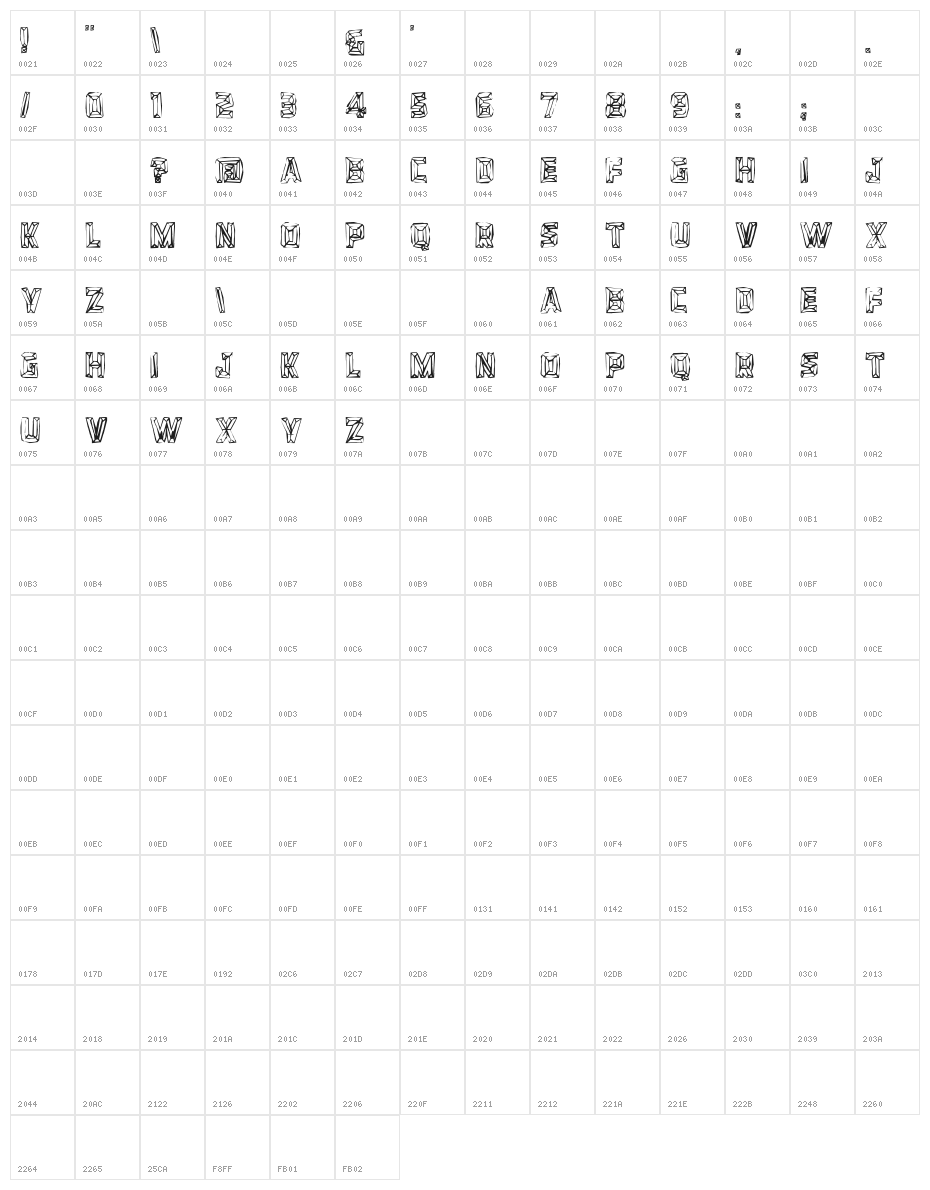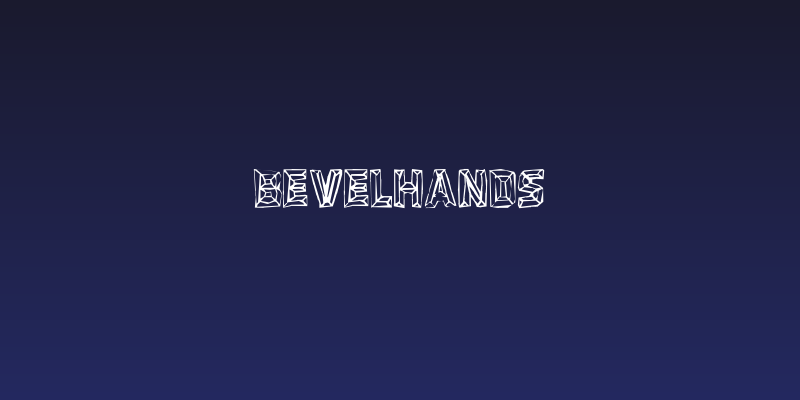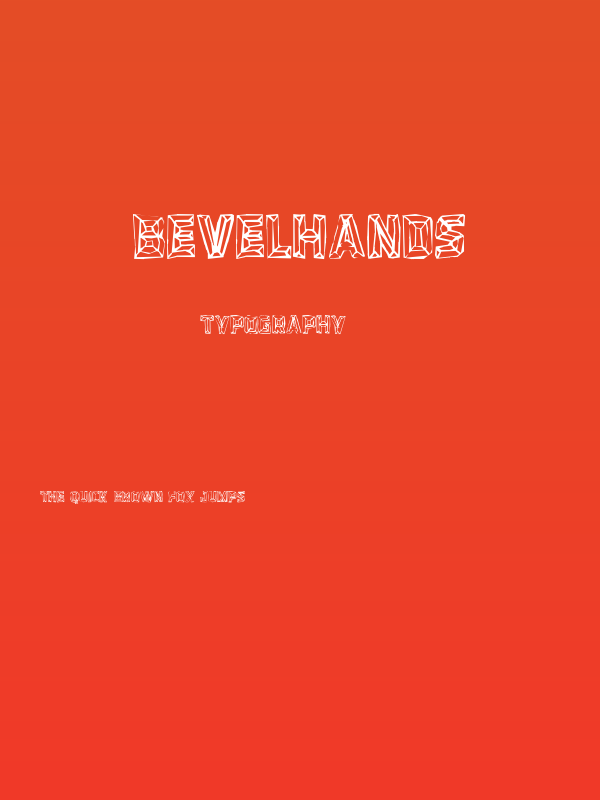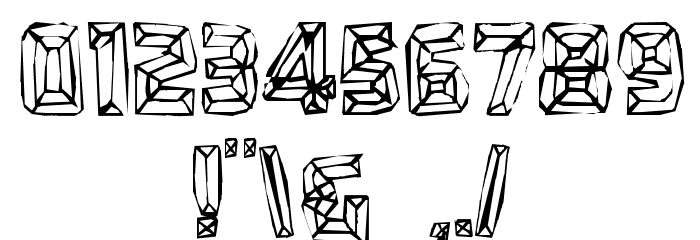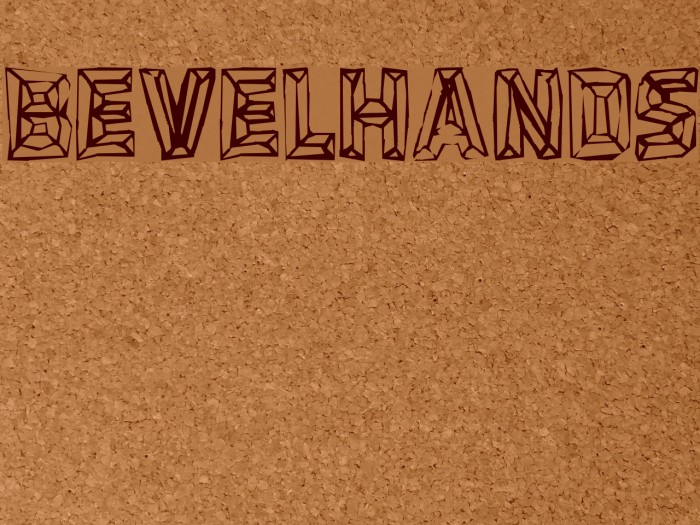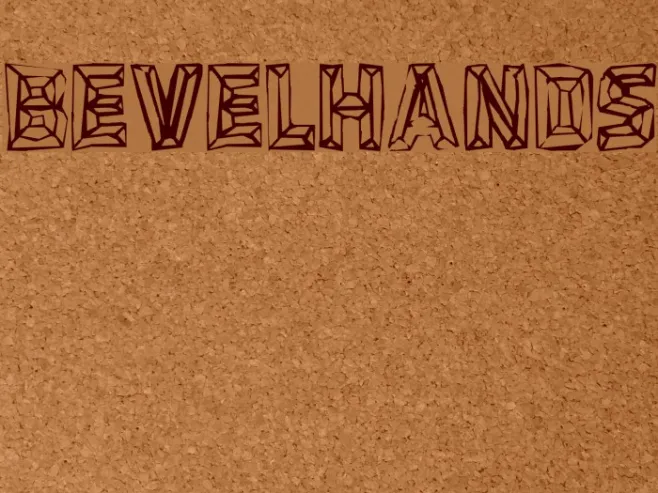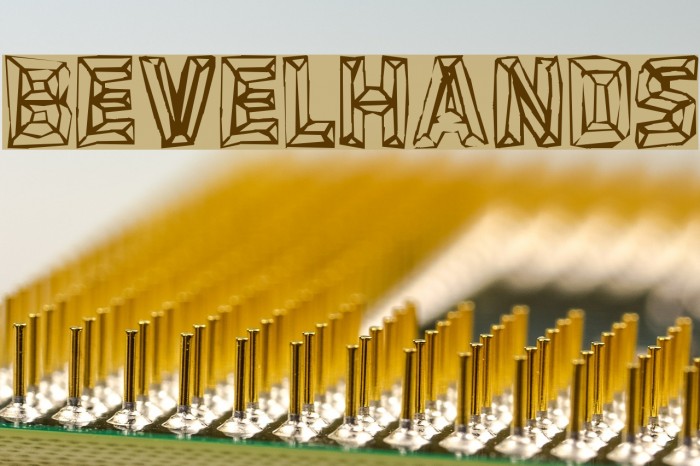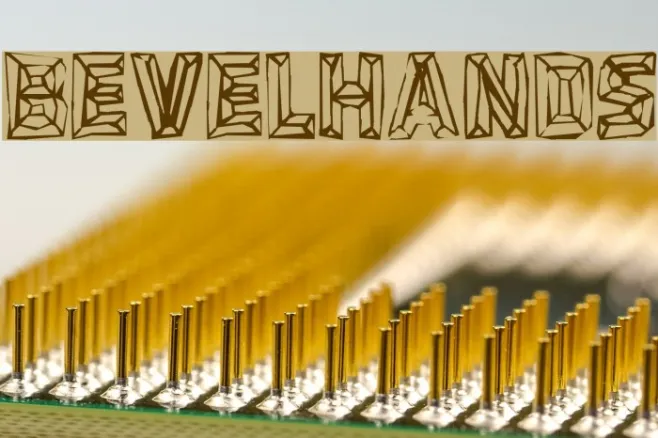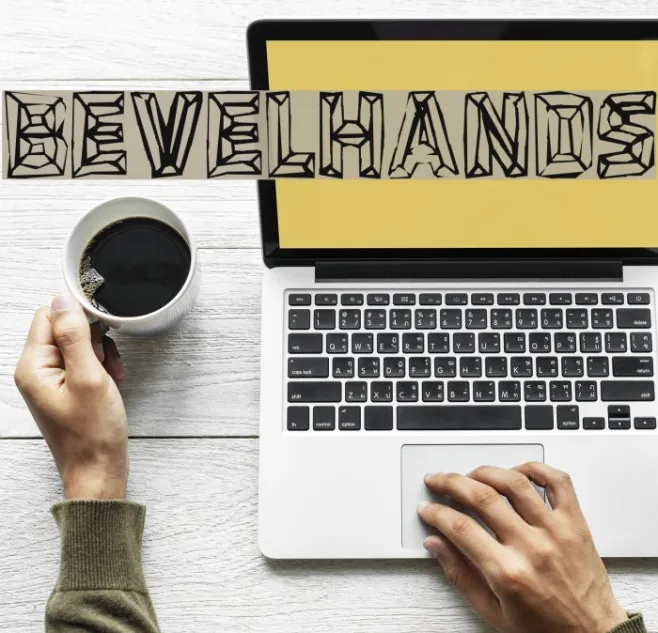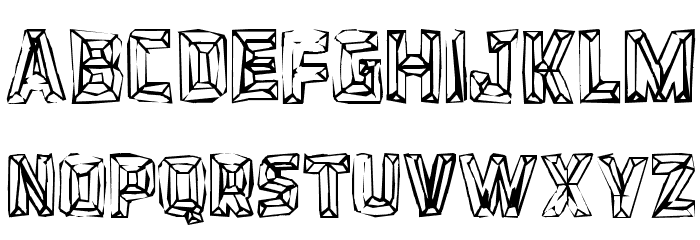
BEVELHANDS Font
BEVELHANDS Description
This font features a bold, geometric design with a three-dimensional, beveled appearance. Each character is crafted with sharp angles and distinct edges, creating a sense of depth and structure. The letters and numbers are outlined with a thick black line, enhancing their visibility and impact. The style is reminiscent of carved stone or metal, giving it a strong, industrial feel. The font maintains consistency across uppercase, lowercase, and numerical characters, ensuring a cohesive look. Special characters are also included, following the same design principles. This font is ideal for projects that require a striking, modern aesthetic with a touch of ruggedness.
| Overall Style | Modern, Industrial |
| Proposed Projects | Ideal for logos, posters, and branding materials that require a bold, impactful look. |